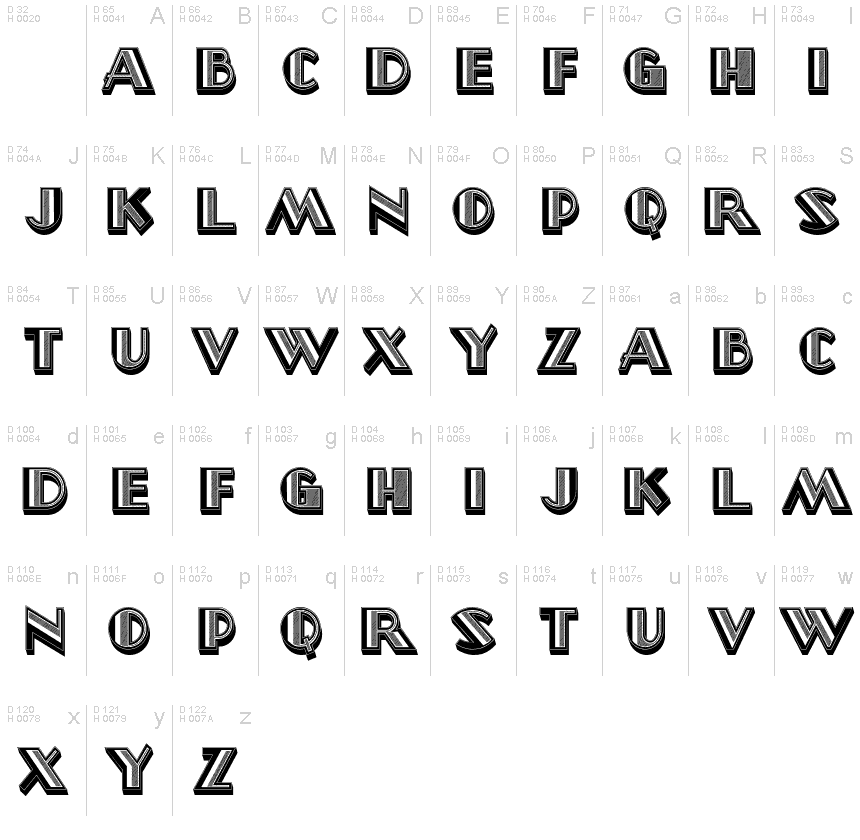
Gance Regular
Gance, the retro-inspired display font by Vladimir Nikolic, is a bold and expanded typeface that will make your designs stand out. Its extra-bold weight adds an element of strength and confidence to any project it's used in. Perfect for vintage or retro-themed designs, Gance's unique style is ideal for posters, logos, and product packaging. With its expanded width and eye-catching appearance, this font demands attention and creates a memorable impression. Use Gance to bring a touch of nostalgia to your next design project.
Gance